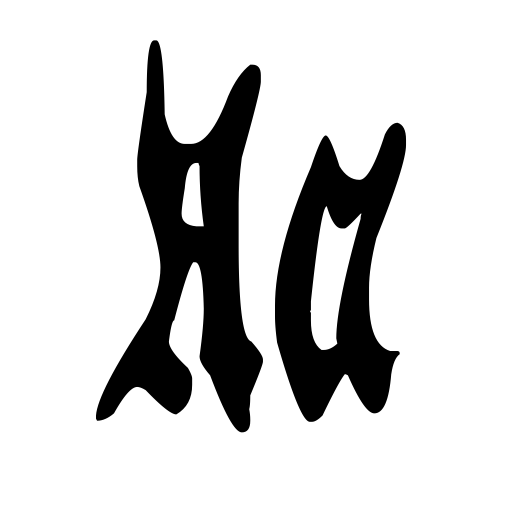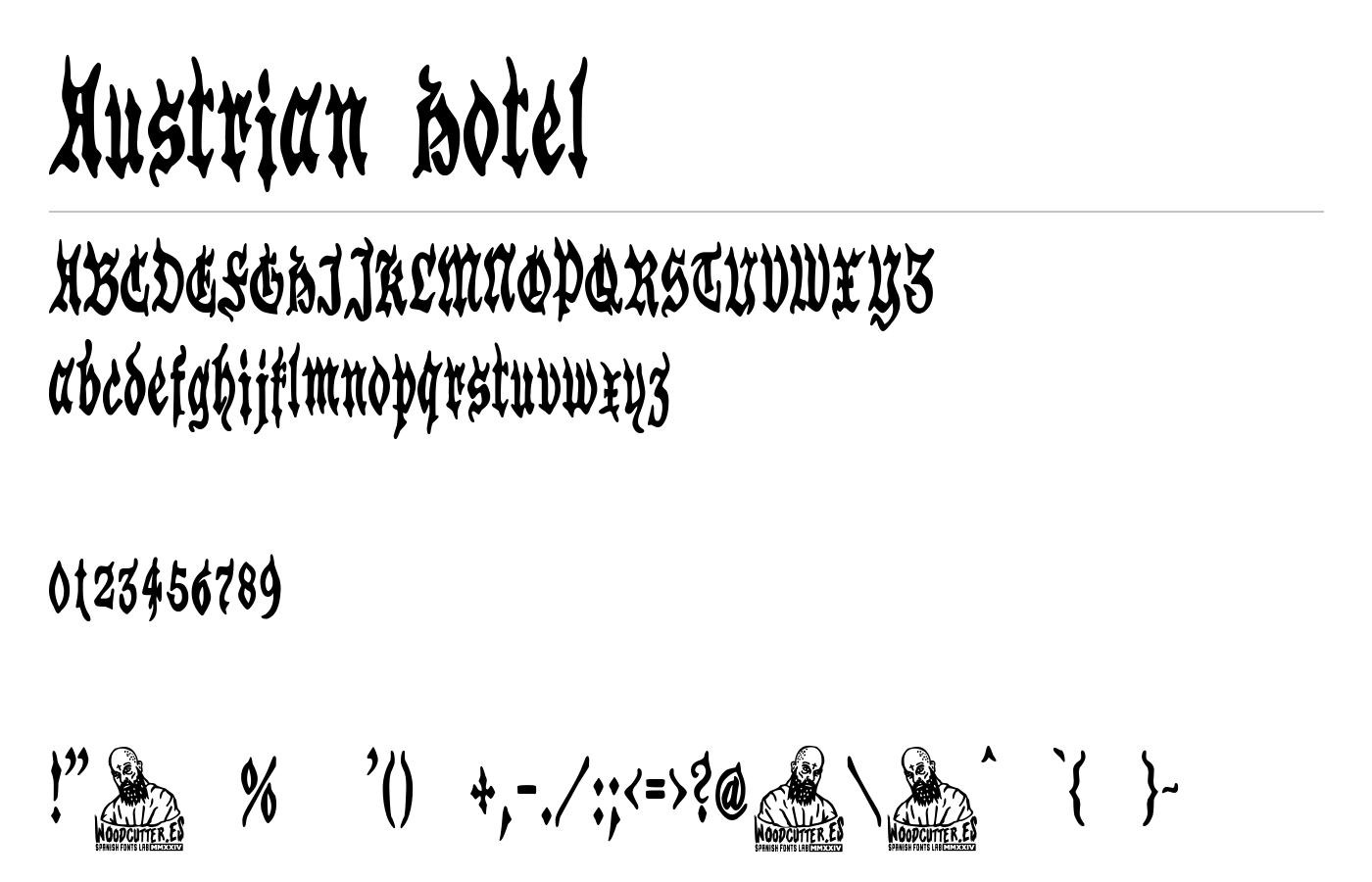
Austrian Hotel Font is a bold, blackletter-style typeface with sharp, intricate strokes that evoke a vintage Gothic atmosphere. Its dramatic, condensed letterforms with high contrast and unique ornamental details make it ideal for creating a historic or medieval mood, perfect for branding, posters, and headlines seeking a distinctive, old-world charm. This font stands out in designs that aim to blend traditional elegance with a striking, artistic flair.
Austrian Hotel Font
About Austrian Hotel Font
| Font family | Austrian Hotel Font |